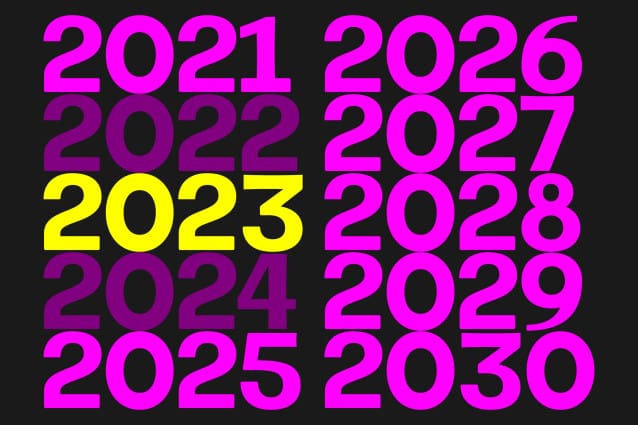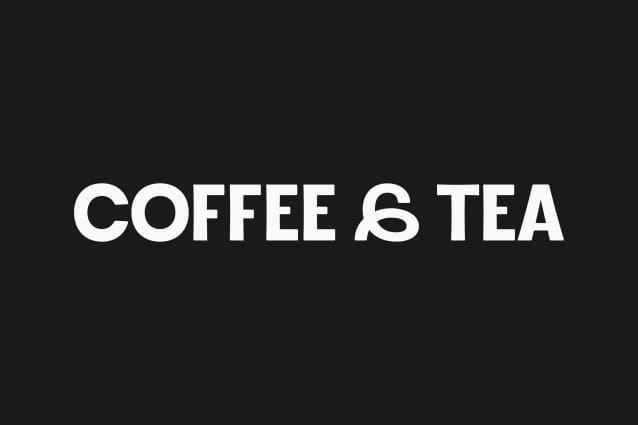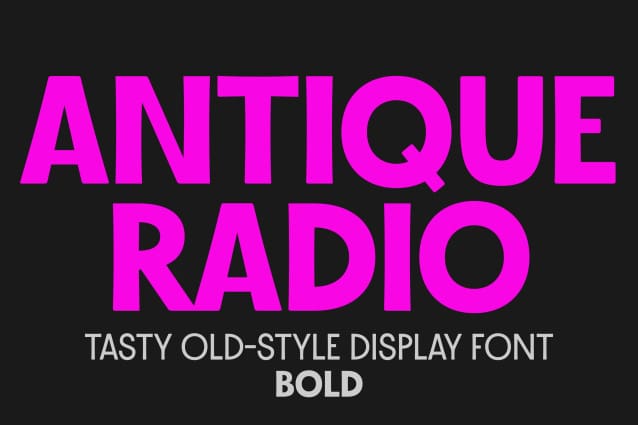
Antique Radio Font
Antique Radio Font, is and old-style all-caps display font. t’s perfect for logos, branding, book covers, posters and such. Antique Radio is available in four weights from Regular to Heavy. This is the Bold cut.